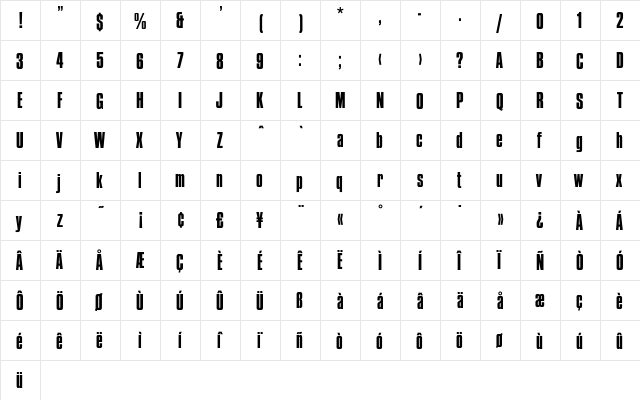
Compacta .. Plain
| Style | .. Plain |
| Year | 1988 |
Design Context for Compacta Typeface
Compacta offers clean, dependable letterforms without strong stylistic allegiance, making it a practical choice for designers who need flexibility. The condensed width makes it efficient for tight spaces without sacrificing legibility.